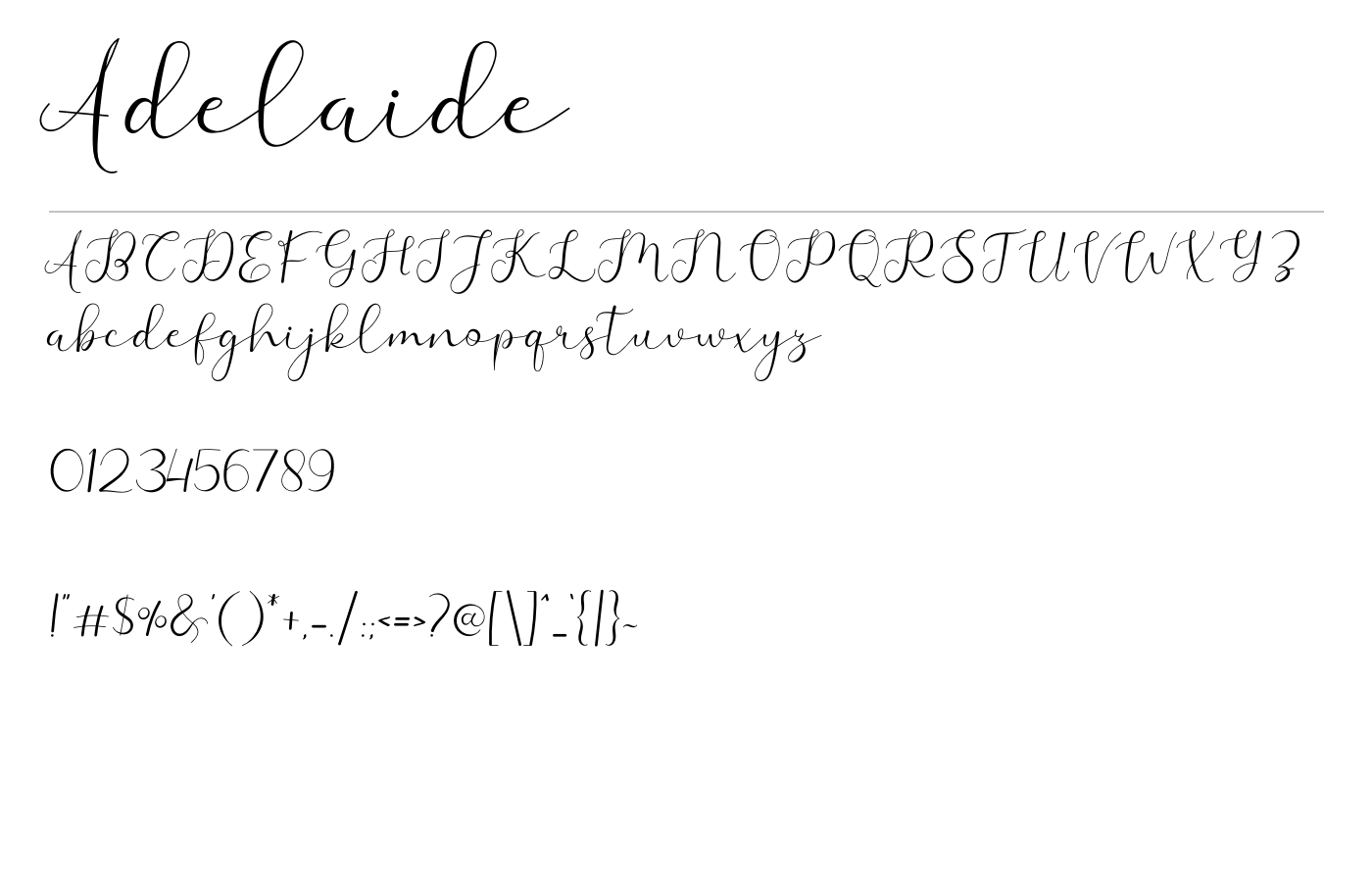
Adelaide is an elegant, delicate script font with finely tapered strokes and graceful, flowing letterforms that give it a sophisticated, handwritten feel. Its light weight and airy spacing make it perfect for invitations, branding, and editorial designs where a touch of romance and refinement is desired. This font works beautifully for projects that need a modern yet classic calligraphic style with a personal, artistic touch.
Adelaide Font
About Adelaide Font